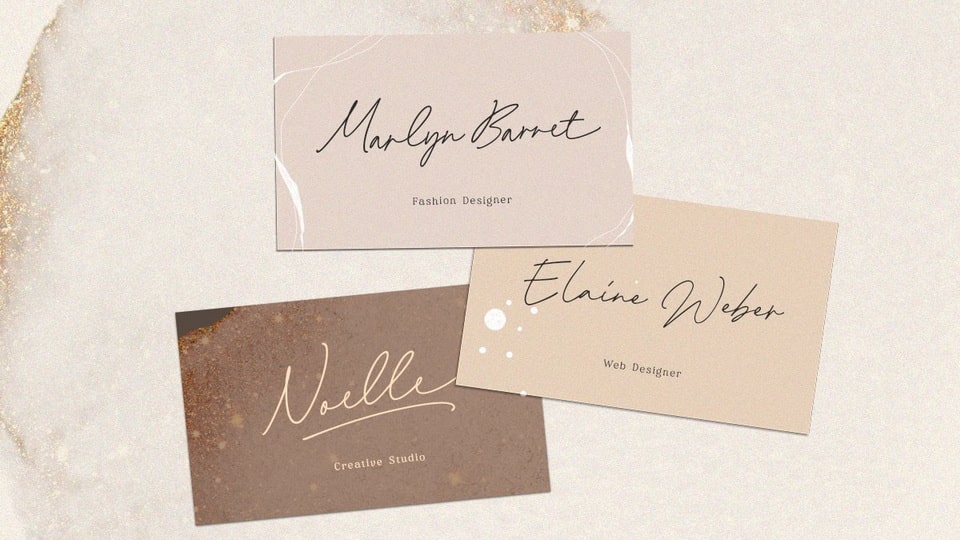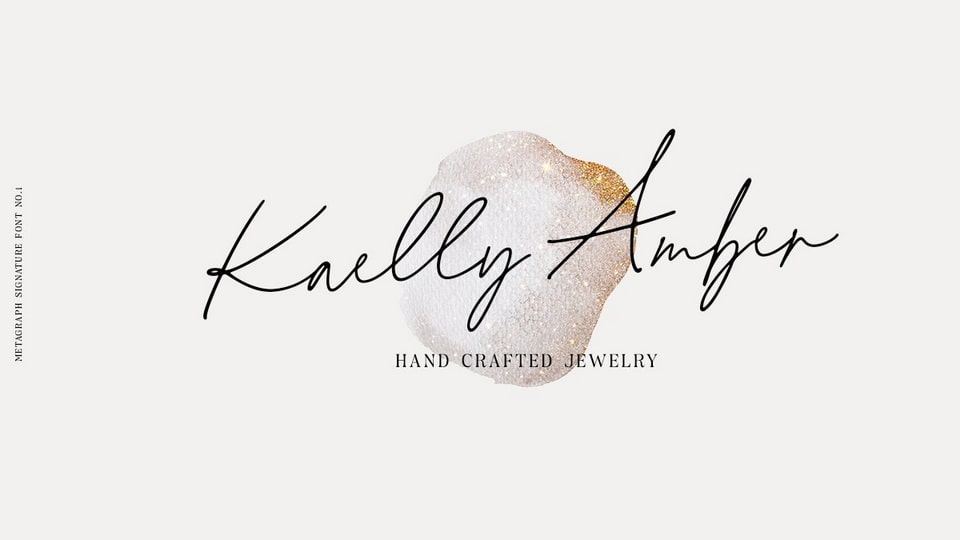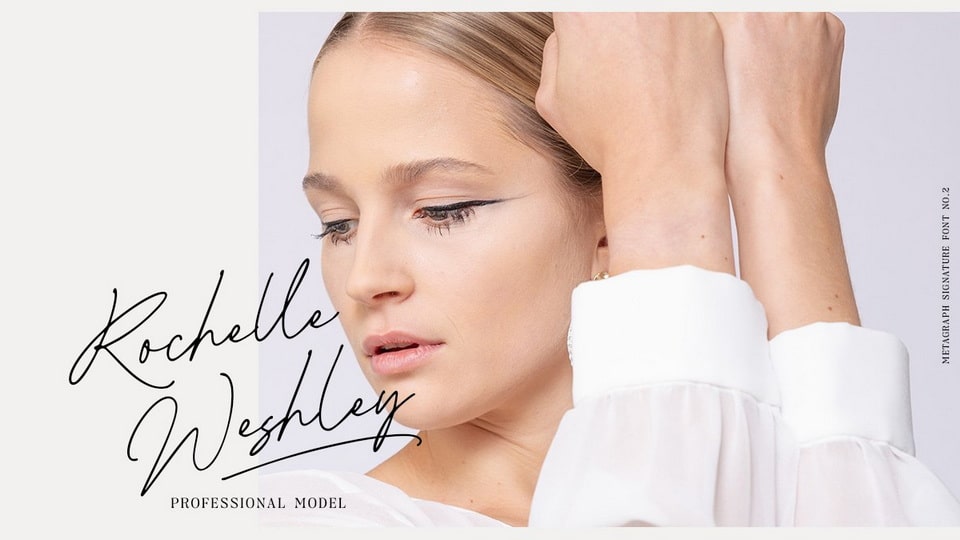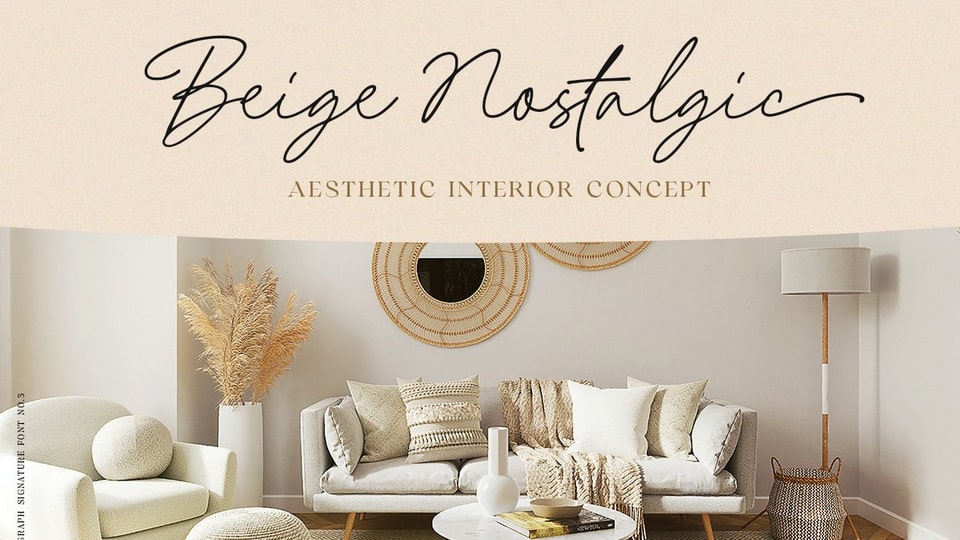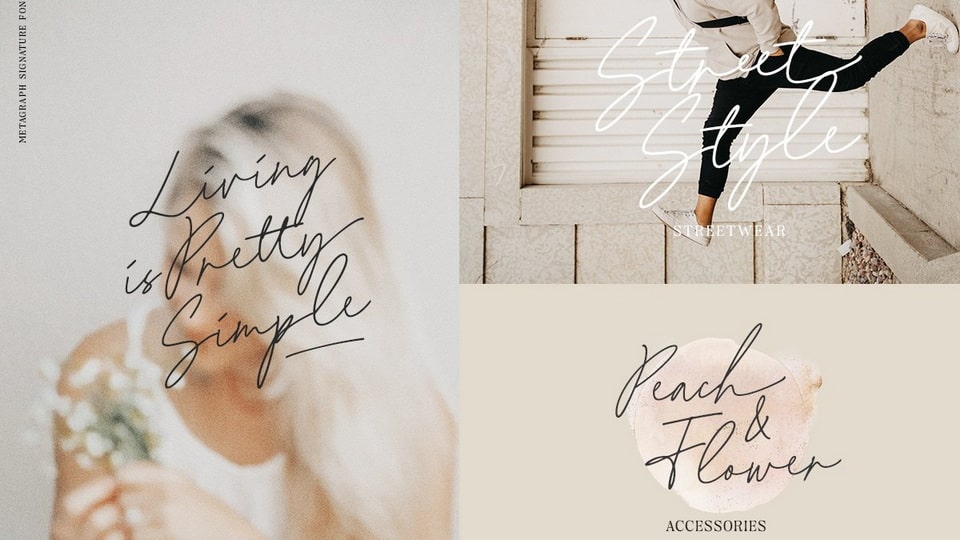
Metagraph is a beautiful signature script font based on manual hand writing. The full version comes with 3 fonts which you can choose from.
Metagraph font perfectly made to be applied especially in logo, and the other various formal forms such as invitations, magazines, books, greeting and wedding cards, packaging, fashion or any type of advertising purpose.